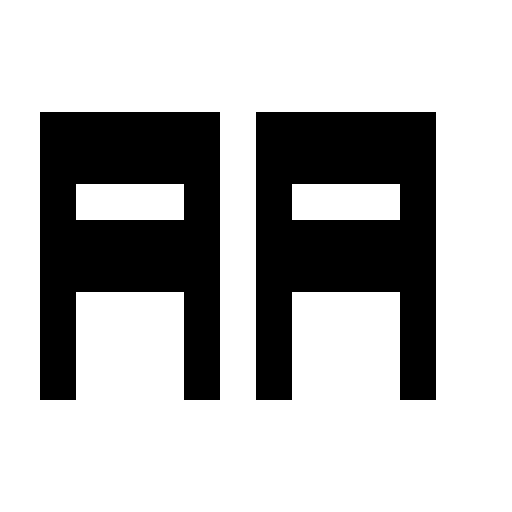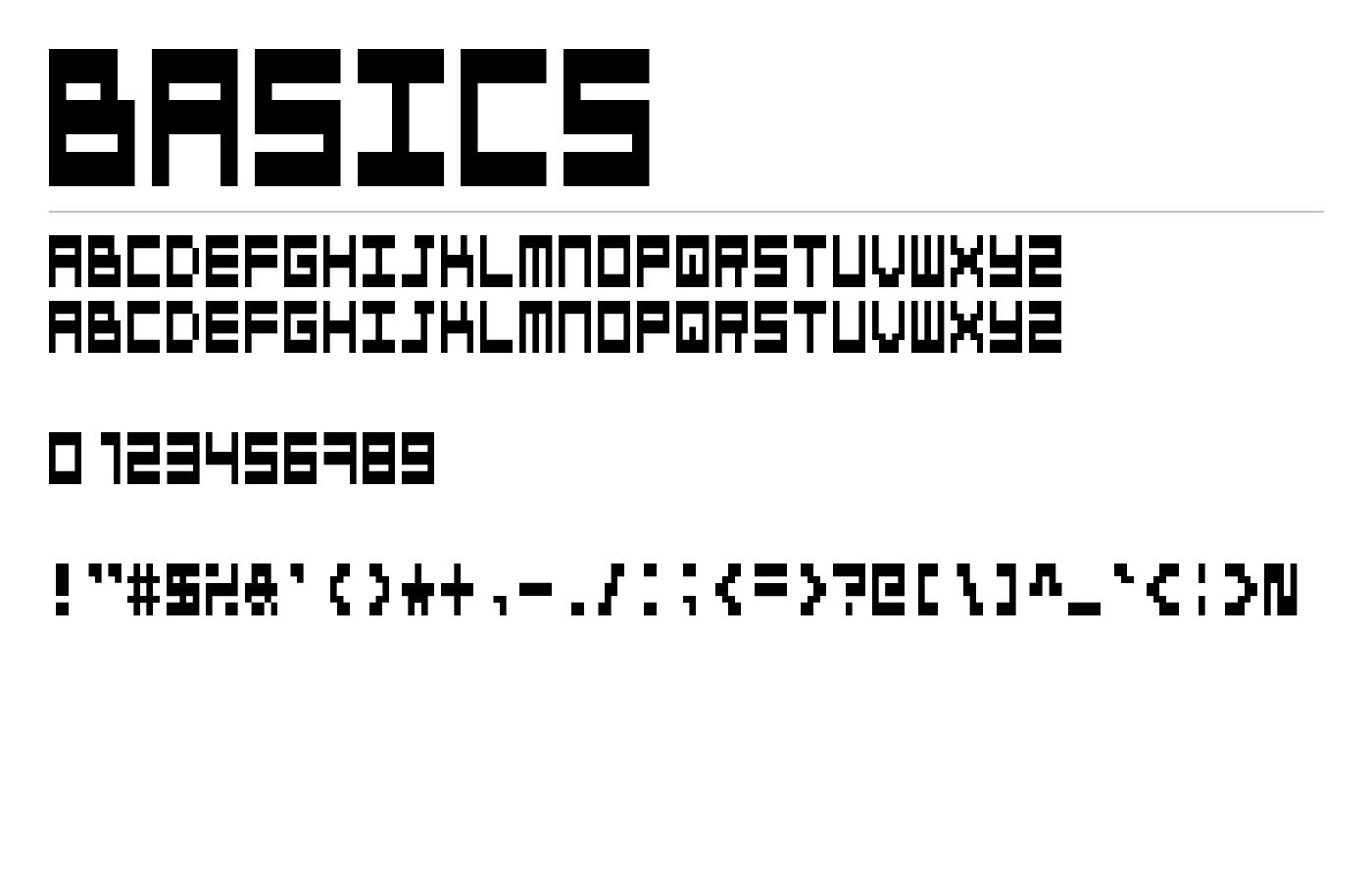
Basic5 Font is a bold, geometric sans serif typeface characterized by its blocky, pixel-inspired shapes and uniform stroke weight. Its rigid, square letterforms and tight spacing give it a digital, retro-tech feel, making it ideal for retro gaming, tech branding, or any project seeking a strong, futuristic aesthetic. This font works best in headlines, logos, and display uses where clarity and impact are key.
Basic5 Font
About Basic5 Font